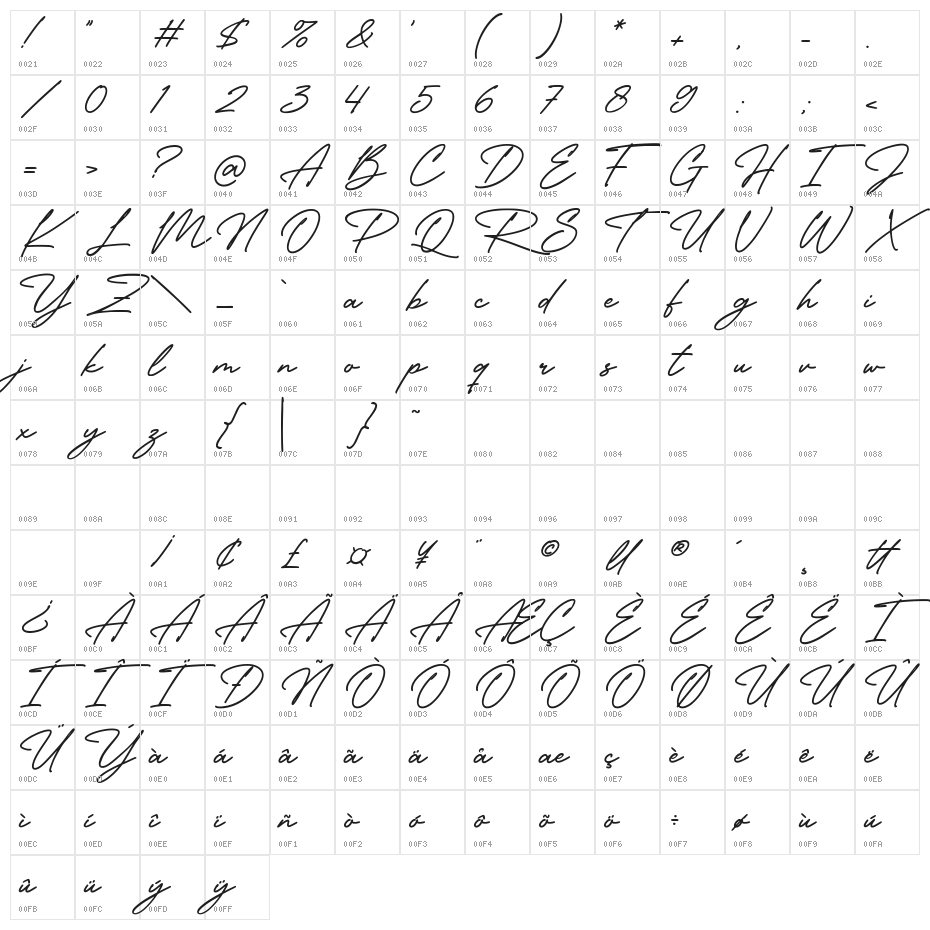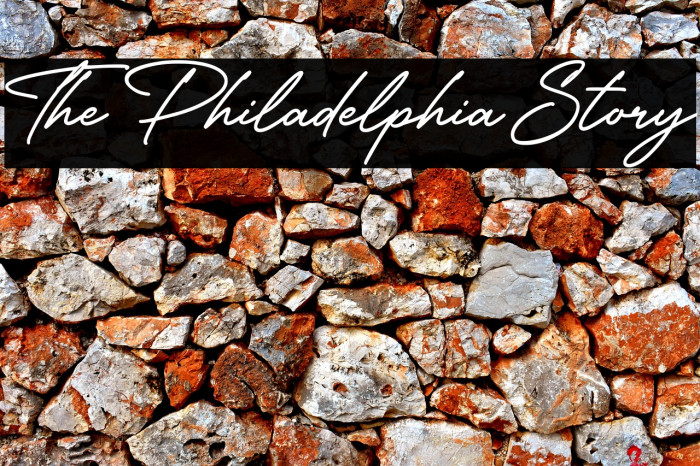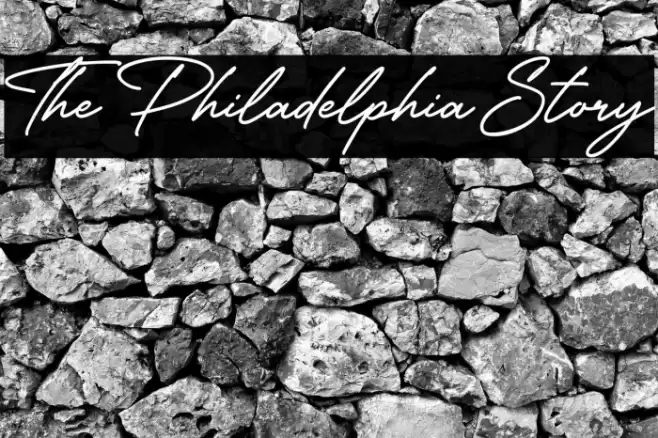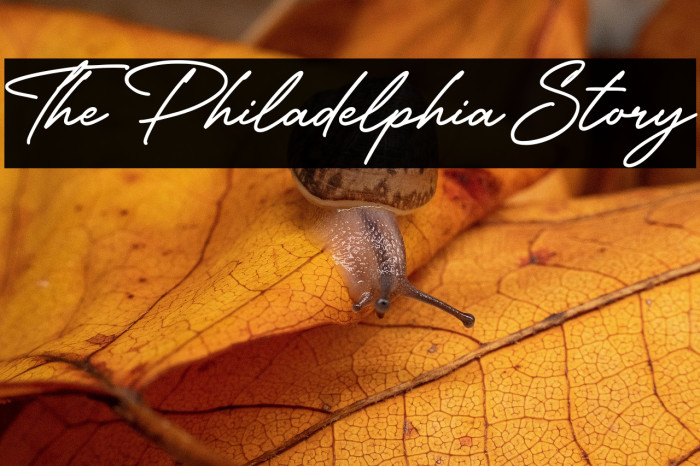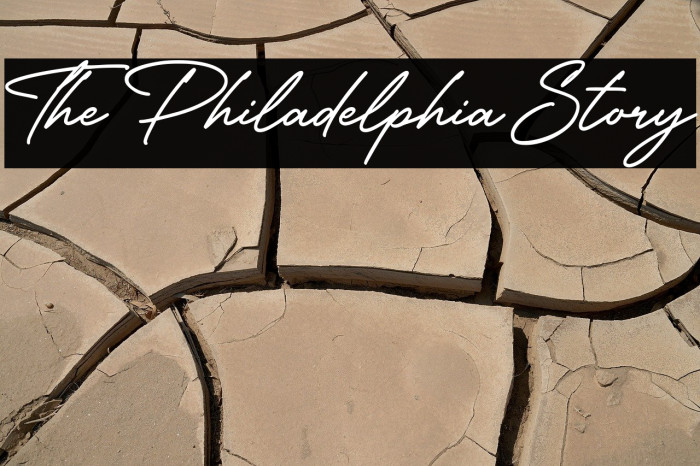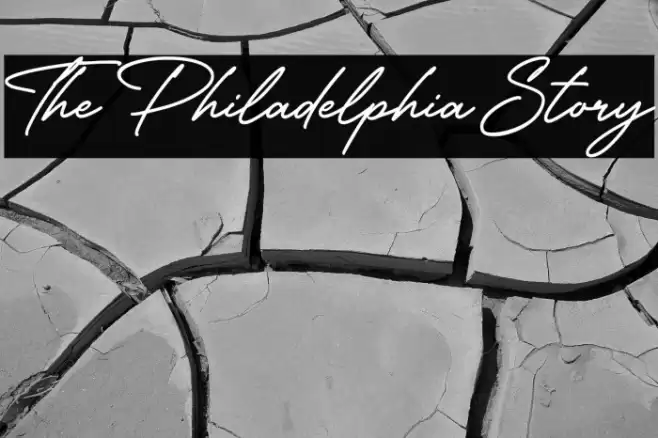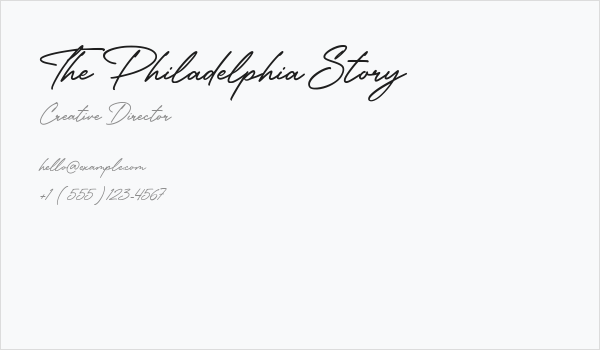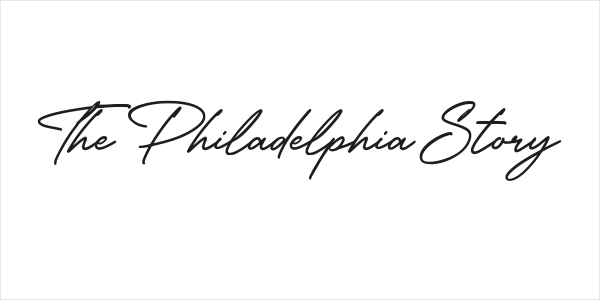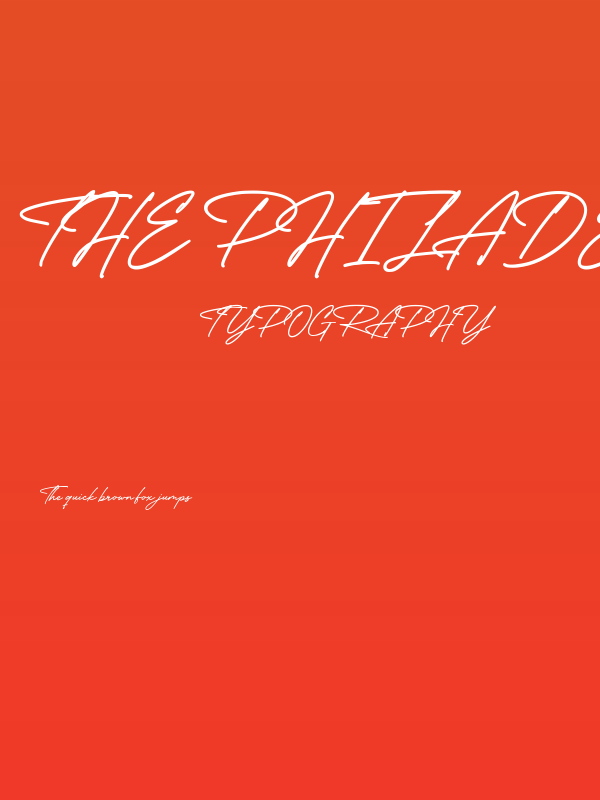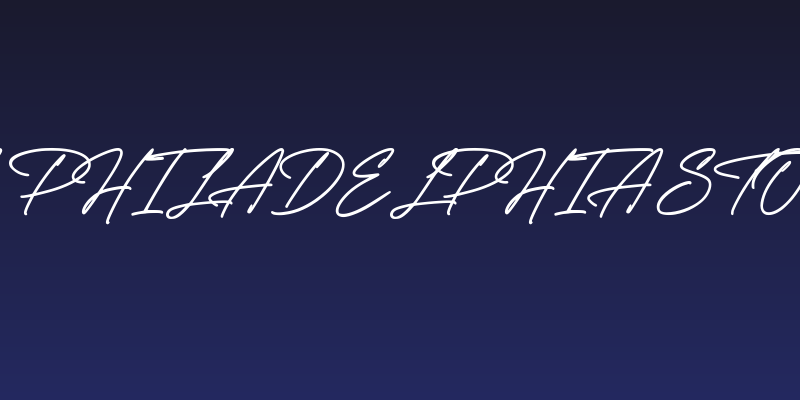
The Philadelphia Story Font
The Philadelphia Story Description
This elegant script font exudes a sense of sophistication and fluidity, characterized by its smooth, flowing lines and cursive style. Each letter connects seamlessly to the next, creating a harmonious and continuous look that mimics the natural motion of handwriting. The uppercase letters are slightly more elaborate, with graceful loops and swirls, while the lowercase letters maintain a consistent rhythm and balance. The numerals and special characters are crafted with the same attention to detail, ensuring a cohesive appearance across all elements. This font is perfect for projects that require a touch of elegance and personal flair.